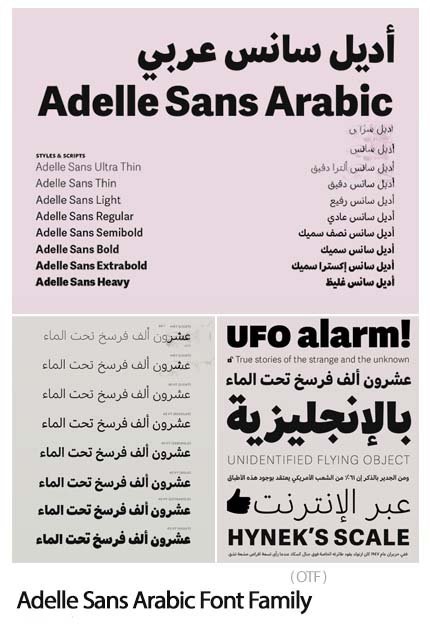
Adelle Sans Arabic Font Family
Adil Sans is a thoughtfully crafted sans-serif typeface that brings together Arabic and Persian scripts in perfect harmony. With its clean lines, modern proportions, and cohesive design language, this bilingual font allows you to create sophisticated projects that flow seamlessly between both languages while maintaining visual consistency across Persian and Arabic text.
Persian (Farsi) Script:
- Clean, contemporary Persian sans-serif letterforms
- Proper character connections and positioning for Persian script
- Full support for Persian-specific characters (گ, چ, پ, ژ)
- Correct representation of Persian numerals
- Modern geometric influence with excellent readability
Arabic Script:
- Coordinated sans-serif design matching Persian style
- Complete Arabic character set
- Full support for Arabic diacritics and marks
- Harmonious weight and proportion with Persian
English/Latin Script:
- Complementary Latin characters for bilingual projects
- Clean, professional appearance for all applications
- Harmonious Design: Both scripts share clean sans-serif aesthetics
- Proper Persian Support: Full support for Farsi-specific characters
- Cultural Authenticity: Properly designed for Persian and Arabic readers
- Modern Aesthetic: Clean, geometric design language for today’s projects
Key Features of Adil Sans Font:
- Coordinated Persian (Farsi) and Arabic sans-serif designs
- Complete character sets for both scripts
- Full support for Persian-specific characters
- Clean, contemporary aesthetic
- Perfect for modern bilingual projects